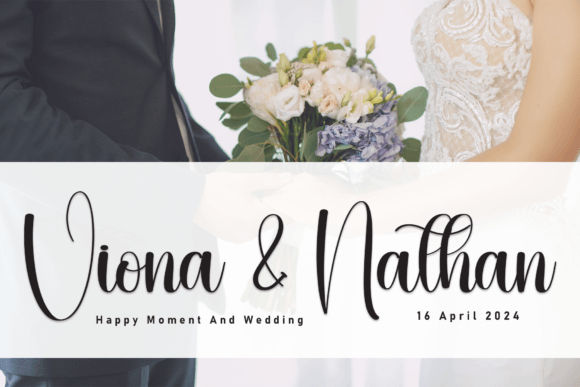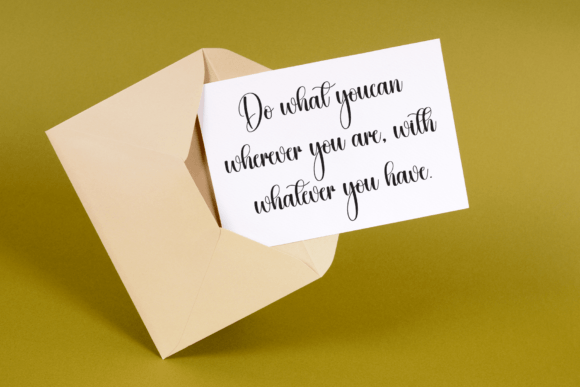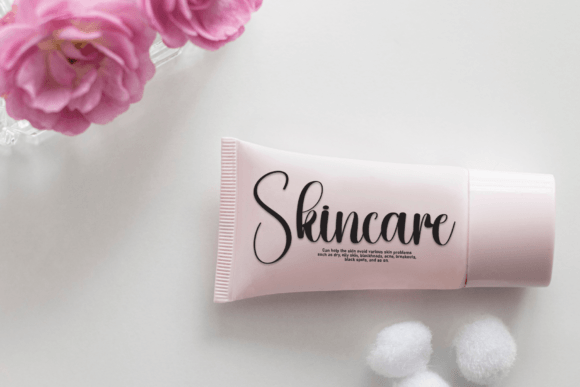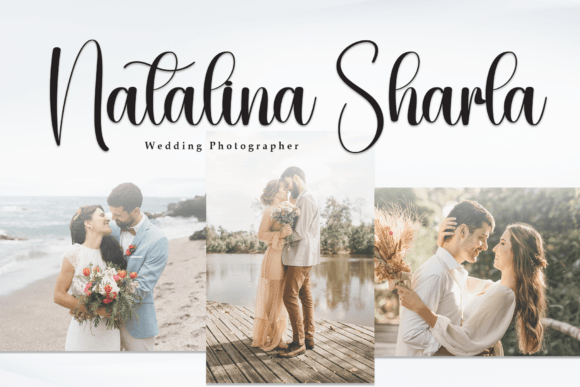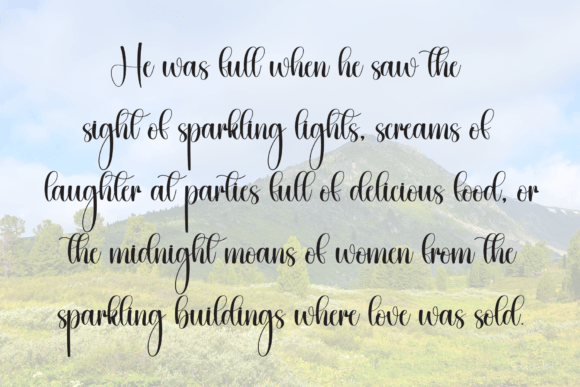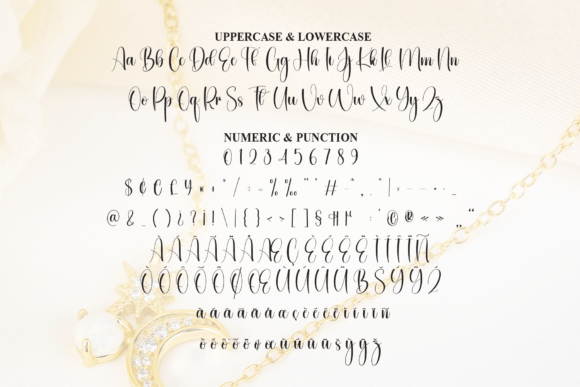
Unwrapping the Charm of Jewelry Font
Who hasn’t been captivated by a beautifully crafted piece of jewelry, only to find themselves lost in the intricate details and the story behind it? It’s moments like these that spark creativity and inspire us to bring a little magic to our designs. For graphic designers, typography is an essential element in crafting a narrative that resonates with our audience.
Enter Jewelry Font, a delightful handwritten font that embodies the warmth and friendliness of a treasured keepsake. With its smooth, flowing strokes and playful curves, Jewelry Font adds a touch of whimsy to any project, from invitations to packaging and social media graphics. Whether you’re looking to create a sense of nostalgia or simply want to spread joy and delight, Jewelry Font is the perfect tool for designers seeking to add a personal touch to their work.
Jewelry Font Key Features
- Unique Characteristics: Jewelry Font features intricate and ornate designs, inspired by antique jewelry and luxury brands. The font includes swashes, flourishes, and other decorative elements to add a touch of elegance to any text.
- Font Styles: The font includes 3 different styles: Regular, Italic, and Bold, allowing designers to choose the perfect style to match their design needs.
- Scalability: Jewelry Font is designed to be highly scalable, ensuring that the intricate details and ornate designs remain crisp and clear even at small font sizes.
Jewelry Font Review
I was excited to dive into the Jewelry Font and see how it would add some sparkle to my designs. Overall, I found it to be a solid choice for certain projects, but with some notable limitations.
- Unique and eye-catching design: The Jewelry Font is certainly a head-turner, making it perfect for designs where you want to add some visual interest.
- Good for ornate and luxurious feels: The font’s intricate details and ornate style make it well-suited for designs that aim to evoke a sense of luxury and opulence.
- Works well in larger sizes: The font’s design holds up well when scaled up, making it a good choice for headings and titles.
- Difficult to read in smaller sizes: The font’s intricate details can make it hard to read when scaled down, which may limit its use in body text or other smaller contexts.
- Limited character set: I found that the font only includes a limited character set, which may not be suitable for projects that require a wide range of characters.
- Not suitable for digital displays: The font’s design may not translate well to digital displays, such as screens or mobile devices.
While the Jewelry Font has its strengths, its limitations may make it less suitable for a wide range of projects. However, for designs that require a unique and luxurious feel, it could be a great choice.
Jewelry Font Practical Application Guide
Some tips for getting the most out of Jewelry Font include:
- Using it for titles and headings to add a touch of elegance.
- Combining it with other decorative fonts for a unique look.
- Experimenting with different font sizes and colors to create visual interest.
Alternatives to Jewelry Font for Designers
Great Vibes Font is a beautiful, cursive script font that is perfect for adding a touch of elegance to designs. It’s ideal for use in wedding invitations, quotes, and other creative projects where a romantic feel is desired. Compared to Jewelry Font, Great Vibes Font has a more refined and sophisticated look, making it suitable for a wider range of applications.
Pacifico Font is a modern script font that exudes a sense of relaxation and calmness. It’s perfect for use in beach-themed designs, travel brochures, and other projects where a laid-back vibe is desired. Compared to Jewelry Font, Pacifico Font has a more relaxed and casual feel, making it suitable for designs that require a more casual tone.